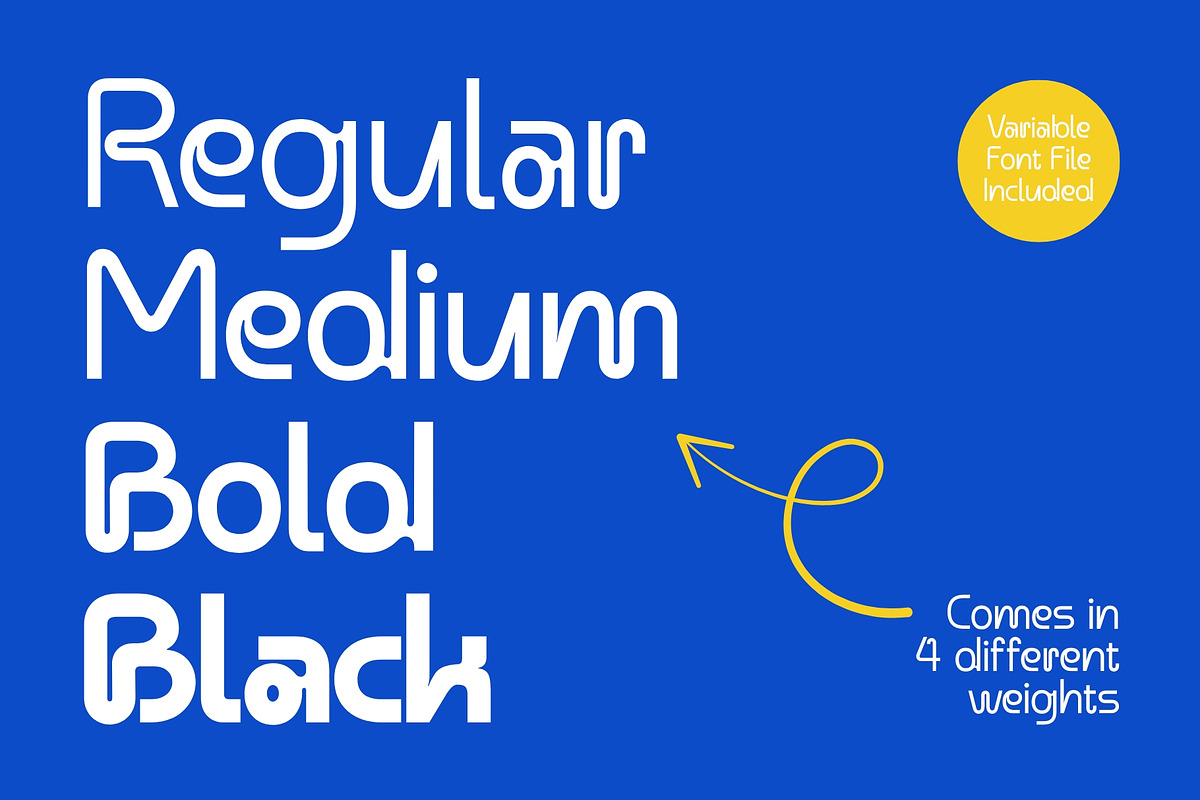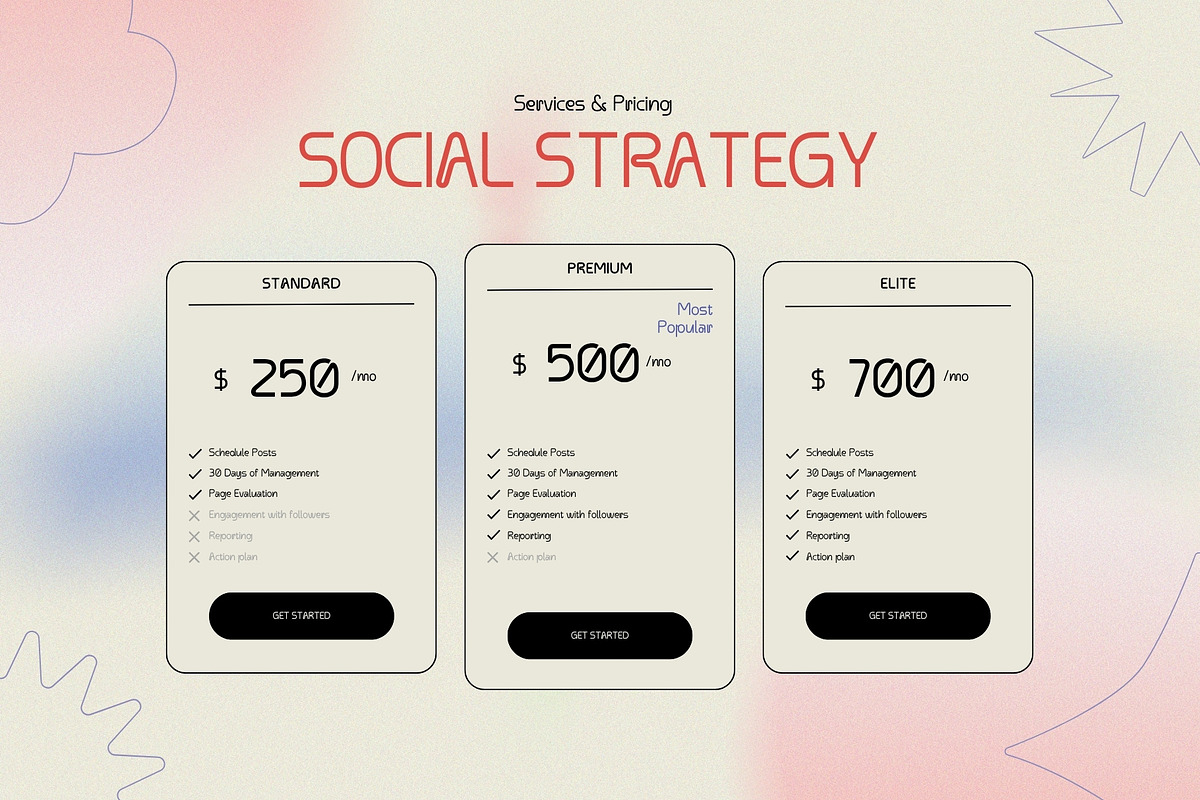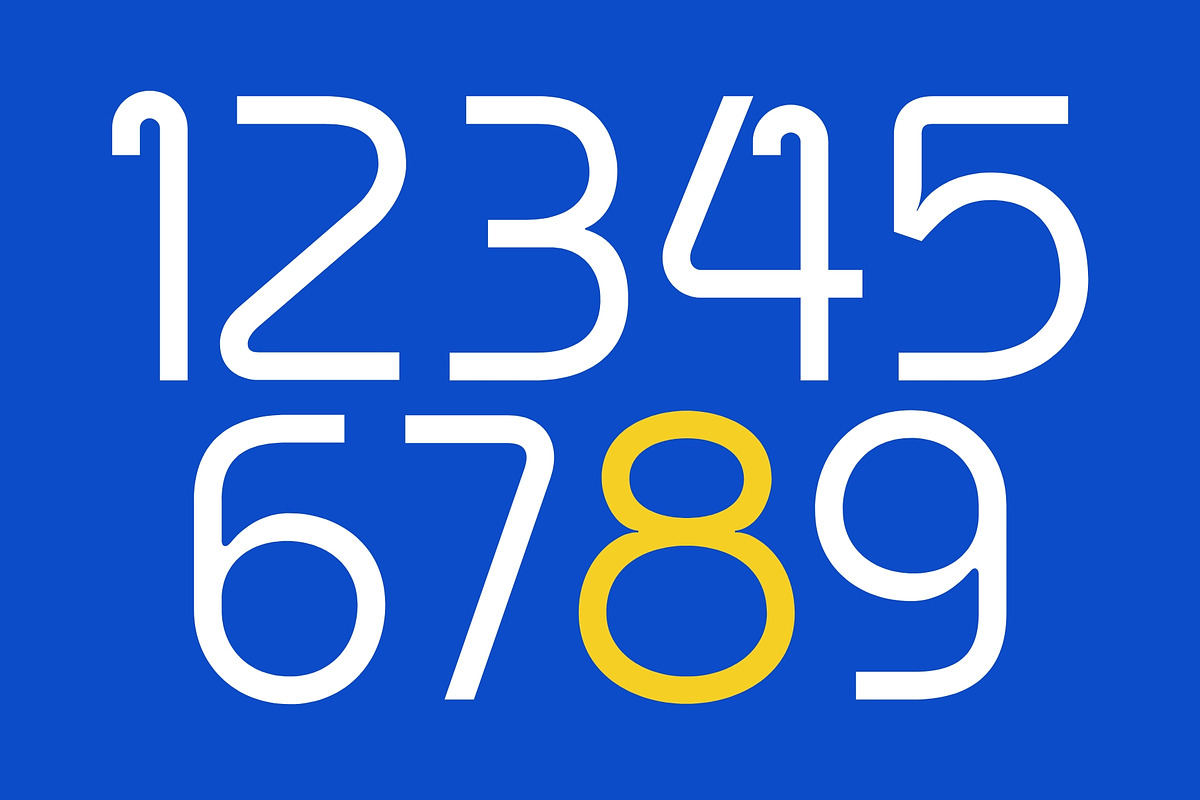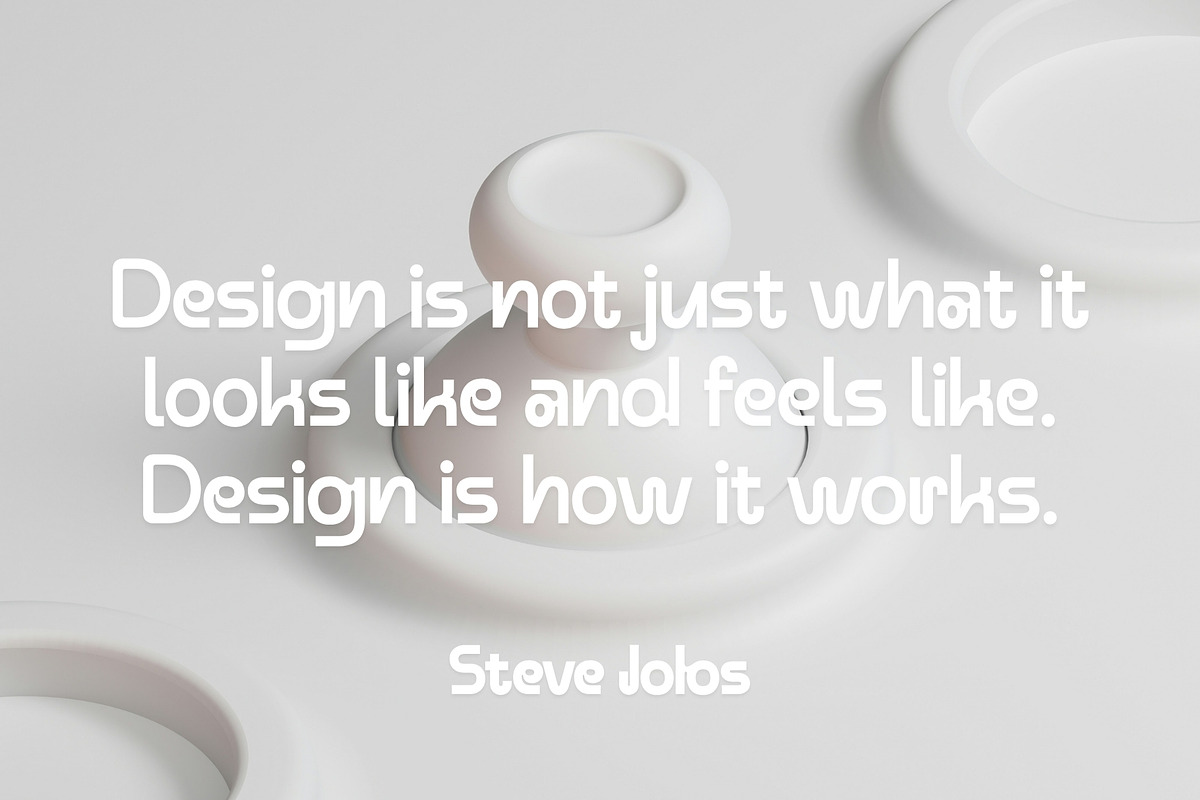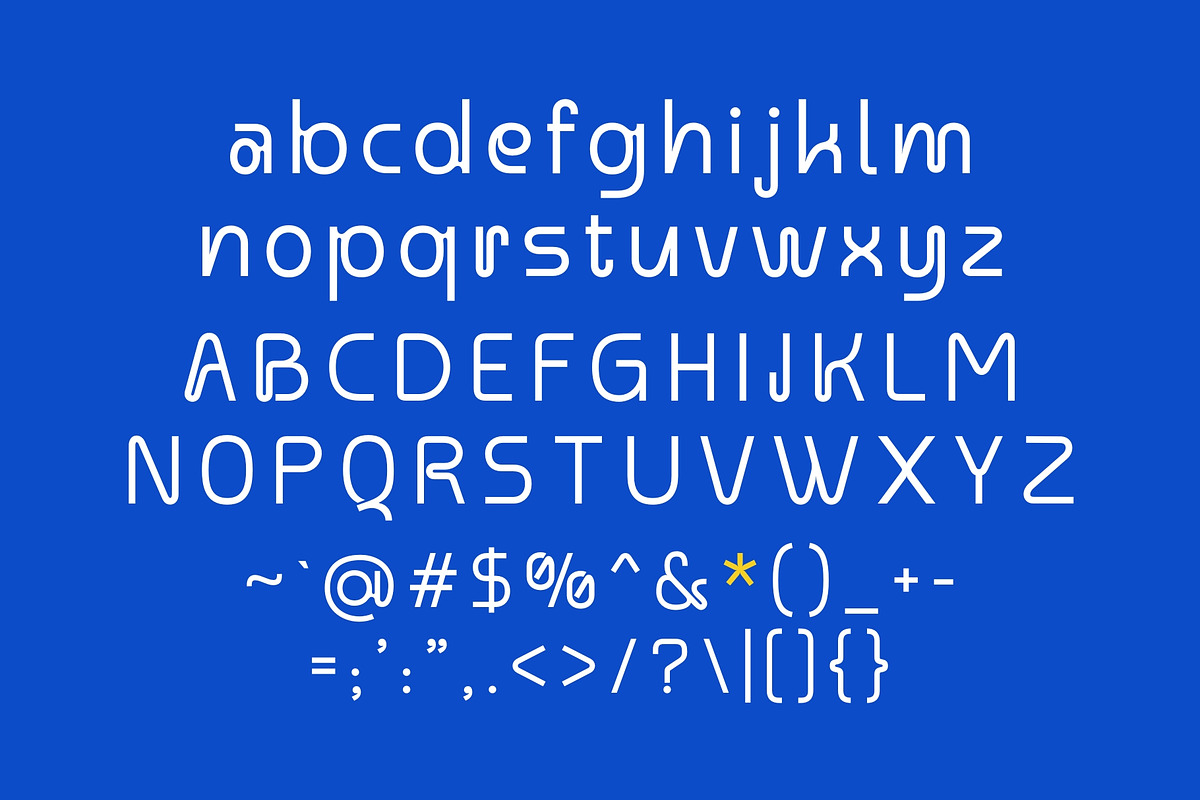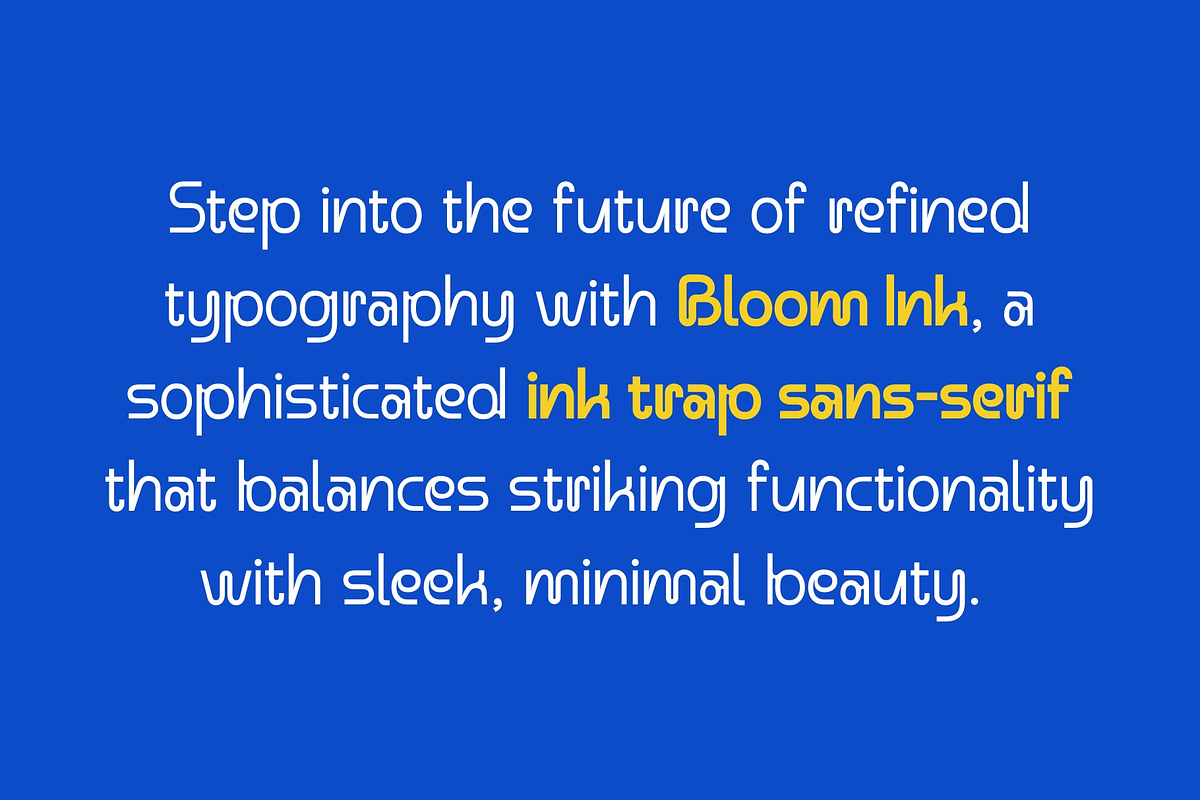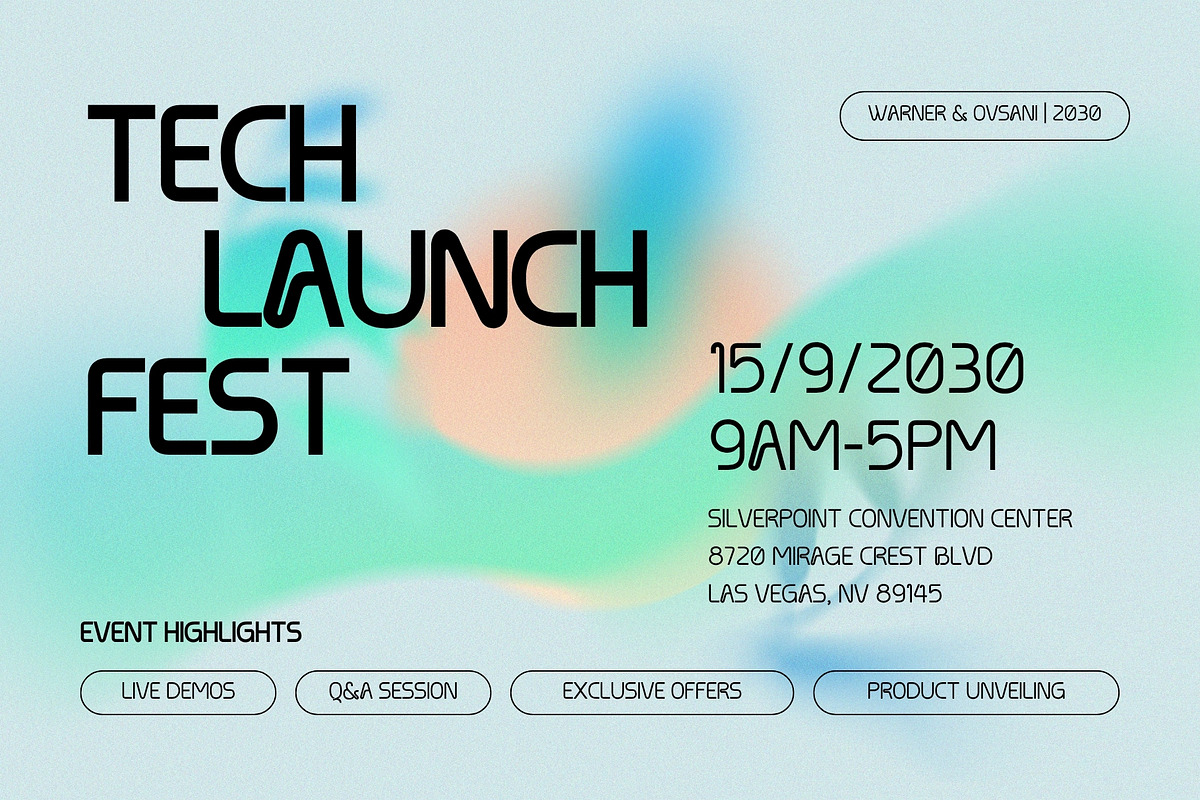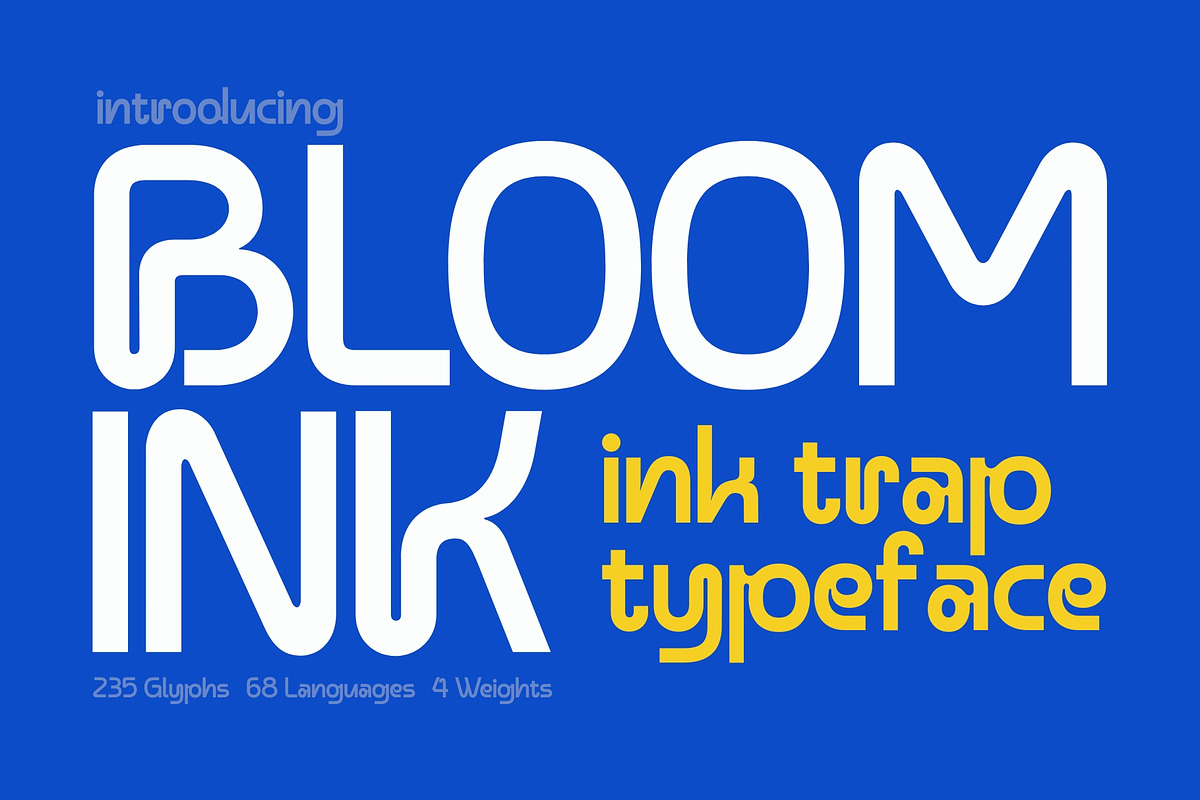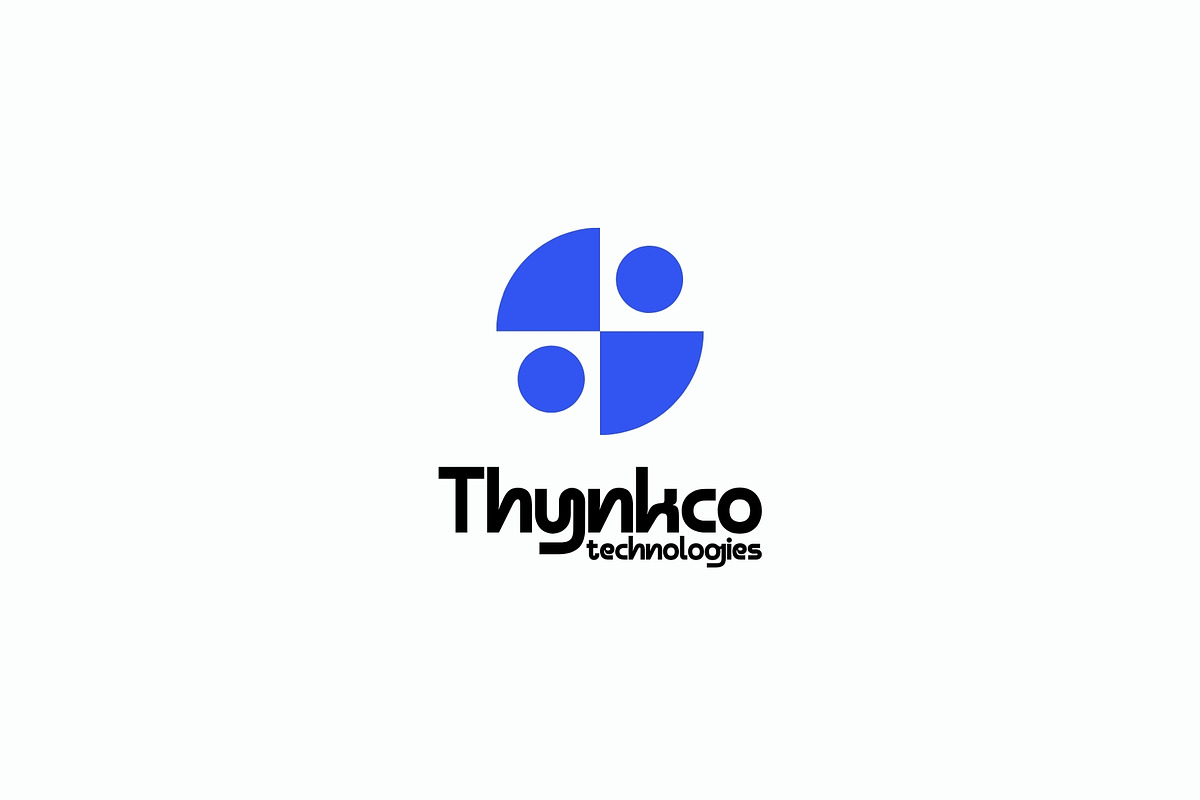
Bloomink - Ink Trap Sans-Serif
Step into the future of refined typography with Bloom Ink, a sophisticated ink trap sans-serif that balances striking functionality with sleek, minimal beauty. Designed with the modern design professional in mind, Bloom Ink is more than just a font, it’s a statement of precision, clarity, and elegance.
With four versatile weights and a powerful variable font file included, Bloom Ink gives you full control over visual rhythm and tone. Whether you're crafting clean editorial layouts, stylish branding, UI/UX interfaces, or high-end packaging, this typeface adapts effortlessly to your vision.
Its subtle ink traps aren’t just a technical nod to classic typesetting, they are the secret behind its razor-sharp edges and crisp performance at any size. The result? A typeface that breathes sophistication without trying too hard.
Why Bloom Ink?
- 4 finely tuned weights for ultimate versatility
- Includes a variable font for seamless customization
- Modern ink trap details for sharp, clear rendering
- Minimalist aesthetic, perfect for premium design projects
- Supports multilingual characters for global reach
Let your work speak volumes with the quiet confidence of Bloom Ink, where modern minimalism meets typographic finess,